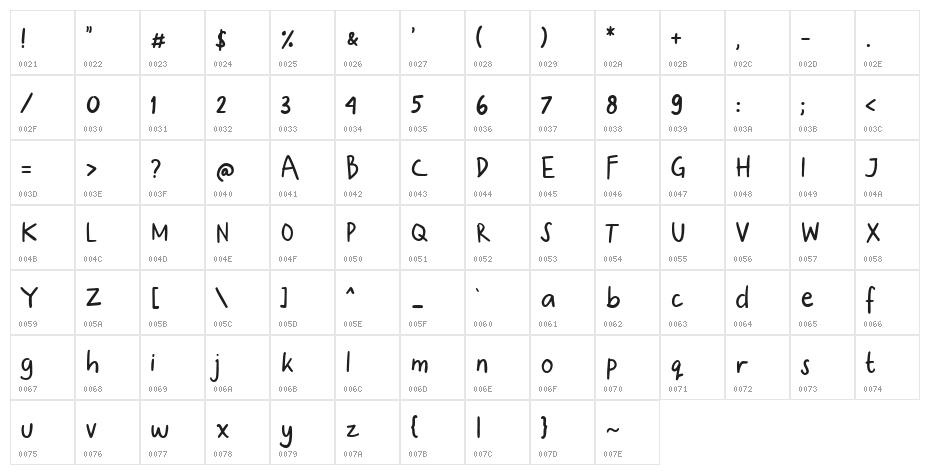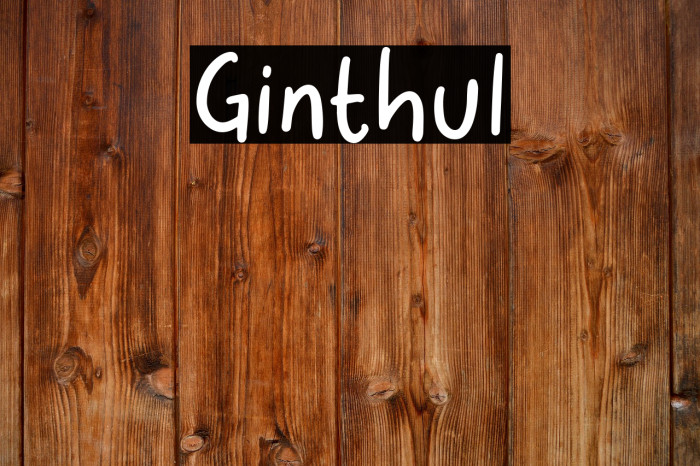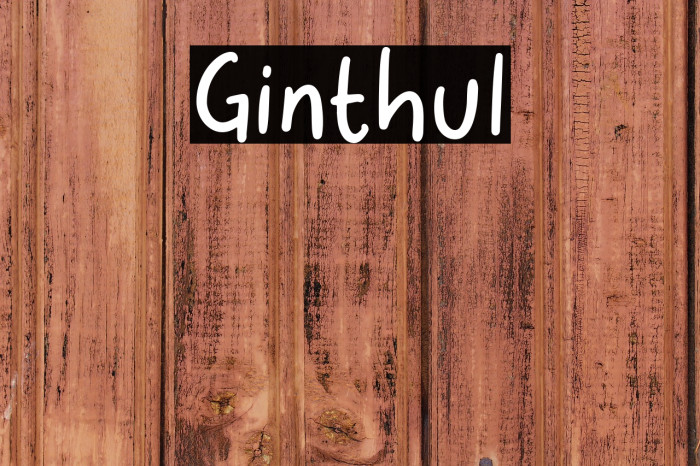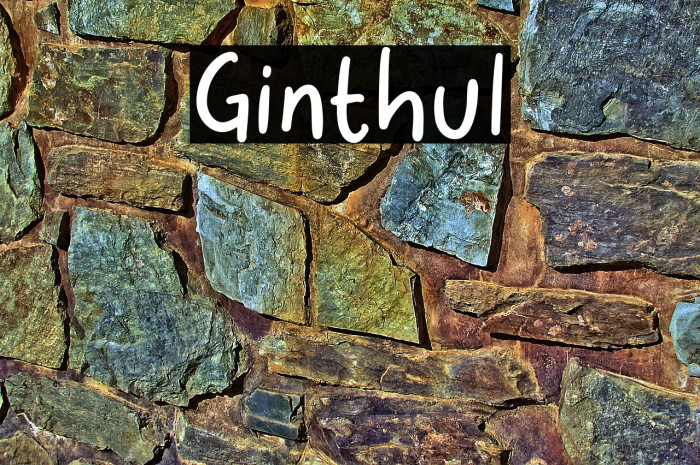
Ginthul Font
Ginthul Description
This font features a playful and informal handwritten style, characterized by its slightly irregular strokes and casual appearance. The letters are rounded and have a friendly, approachable feel, making them suitable for projects that aim to convey warmth and personality. The uppercase and lowercase letters maintain a consistent style, with a slight slant that adds to the handwritten effect. The numerals and special characters are designed to match the overall aesthetic, ensuring a cohesive look across different text elements.
| Overall Style | Casual |
| Use Case | Headlines, Informal text, Personal projects |
| Proposed Projects | Ideal for greeting cards, children's books, personal blogs, and informal branding projects. |